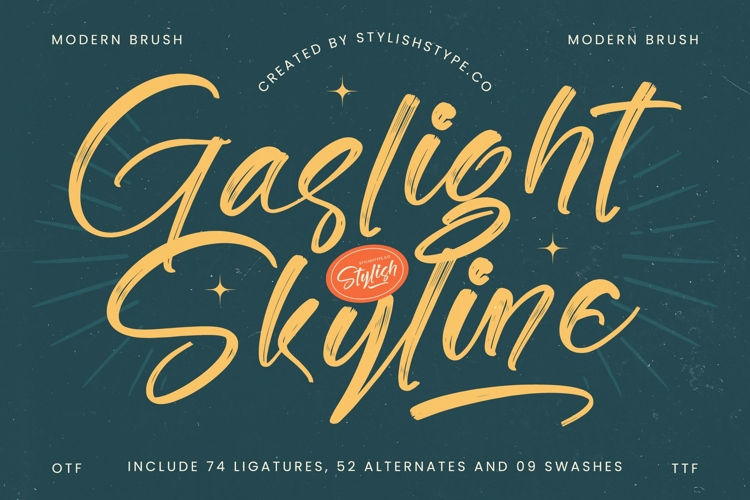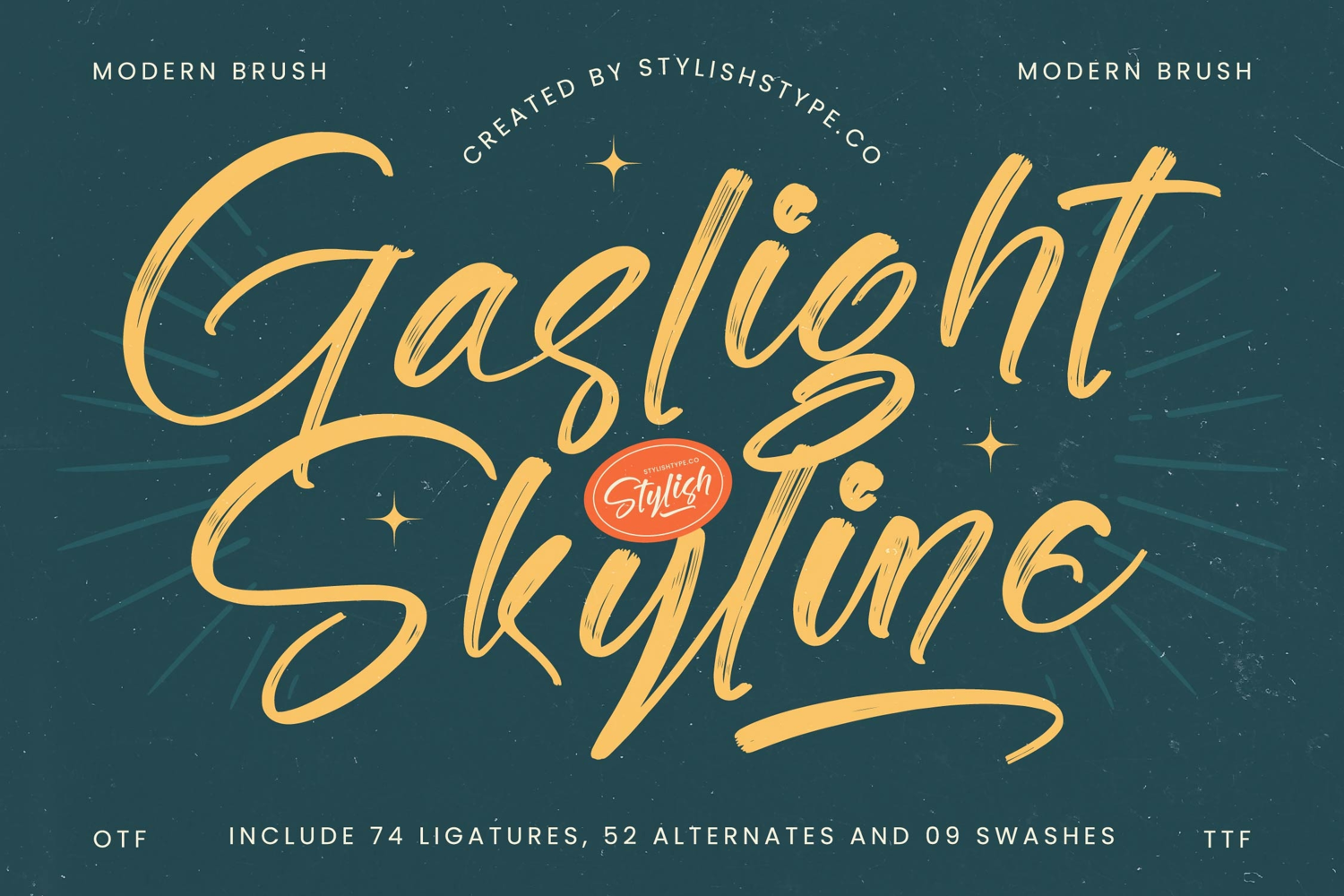
Gaslight Skyline - Modern Brush Font
Unleash creativity with Font Gaslight Skyline - Modern Brush Font Script, a captivating typeface that effortlessly blends contemporary style with an authentic, handcrafted appeal. This dynamic brush script radiates an energetic and expressive character, perfect for projects demanding a touch of flair and modern sophistication. Its organic flow and artistic strokes immediately draw the eye, establishing a memorable visual statement right from the start.
Experience unparalleled design flexibility with the rich features packed into Font Gaslight Skyline - Modern Brush Font Script. Boasting 74 ligatures, 52 alternates, and 9 swashes, this font provides extensive customization to ensure your text truly stands out. With its extensive multilingual support, Font Gaslight Skyline - Modern Brush Font Script adapts seamlessly across global markets, making it incredibly versatile for international projects.